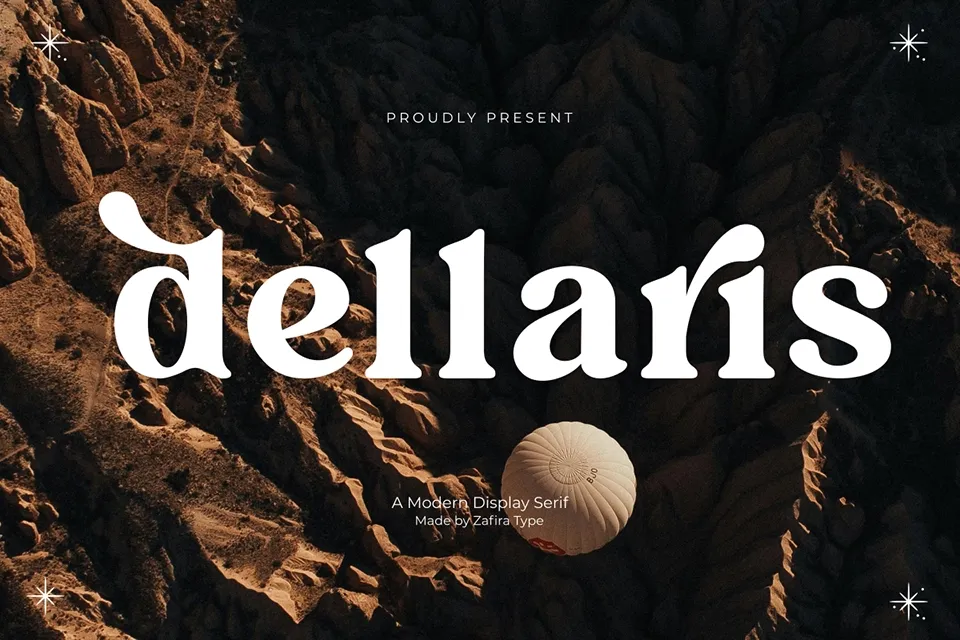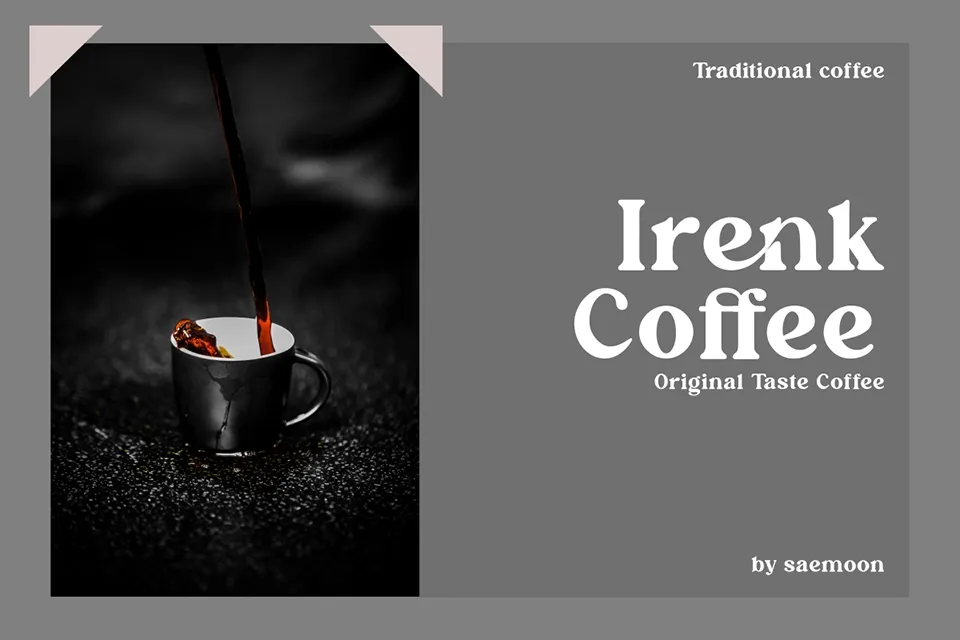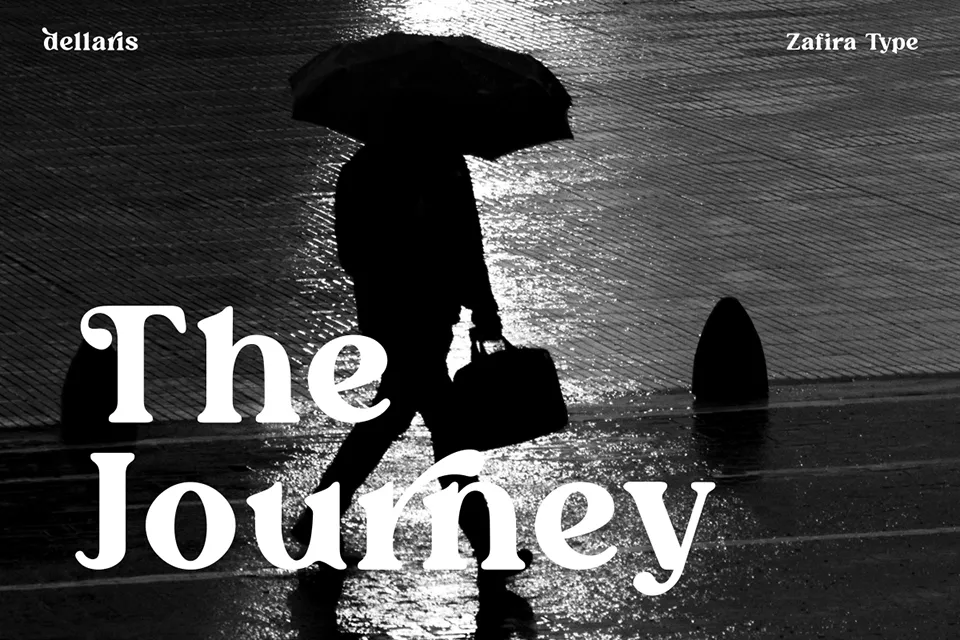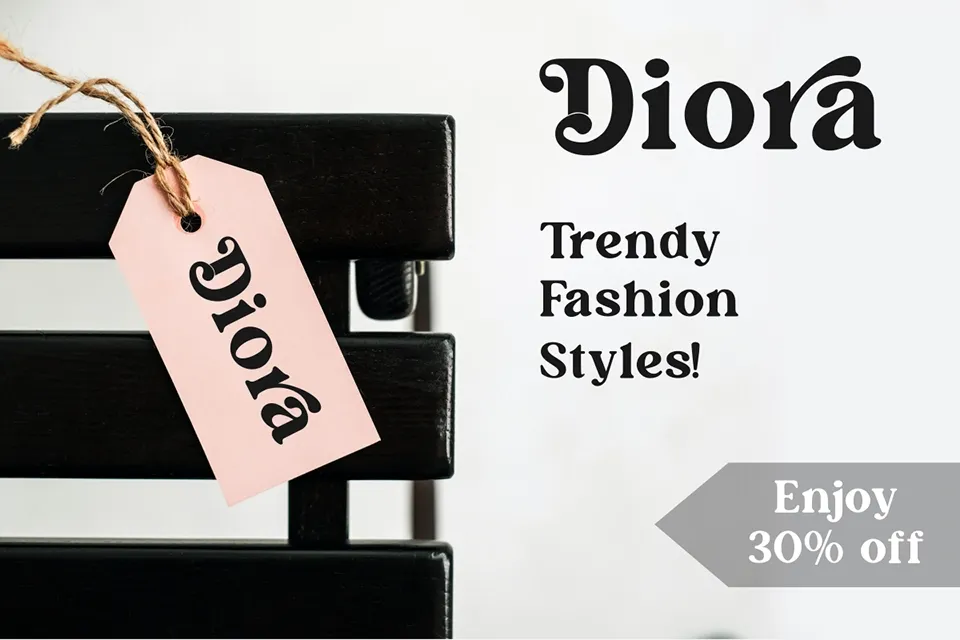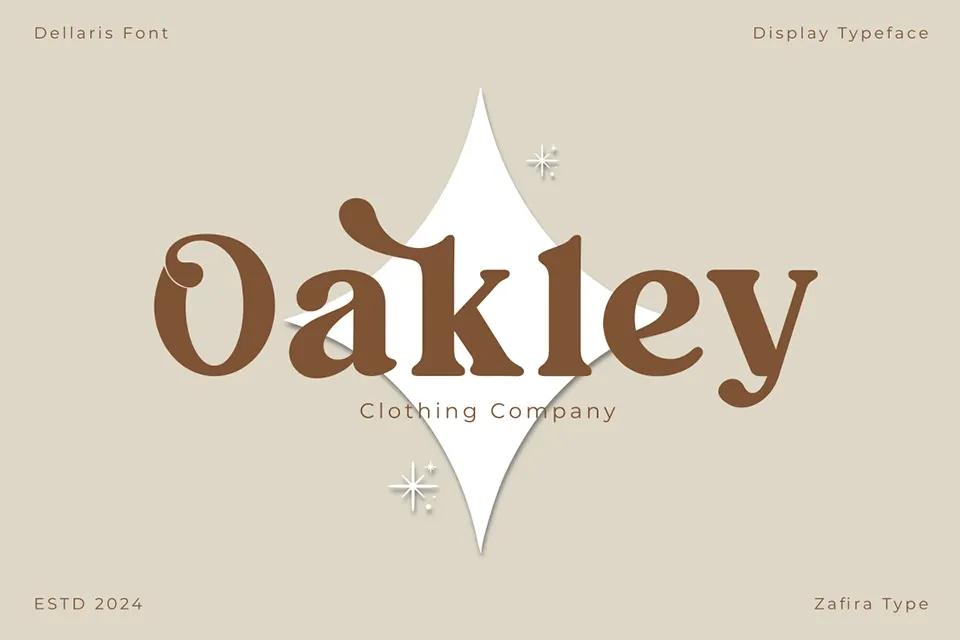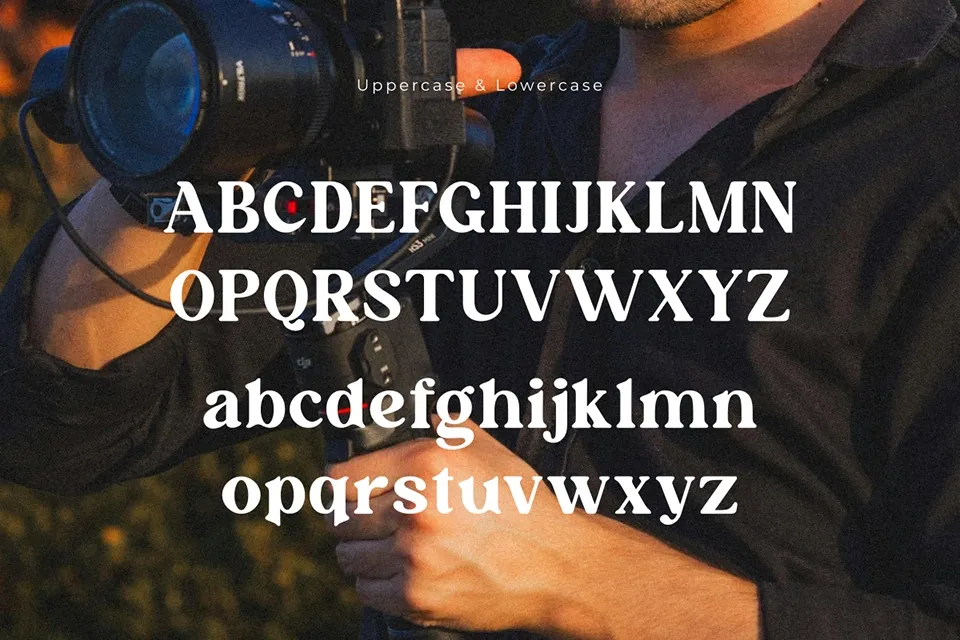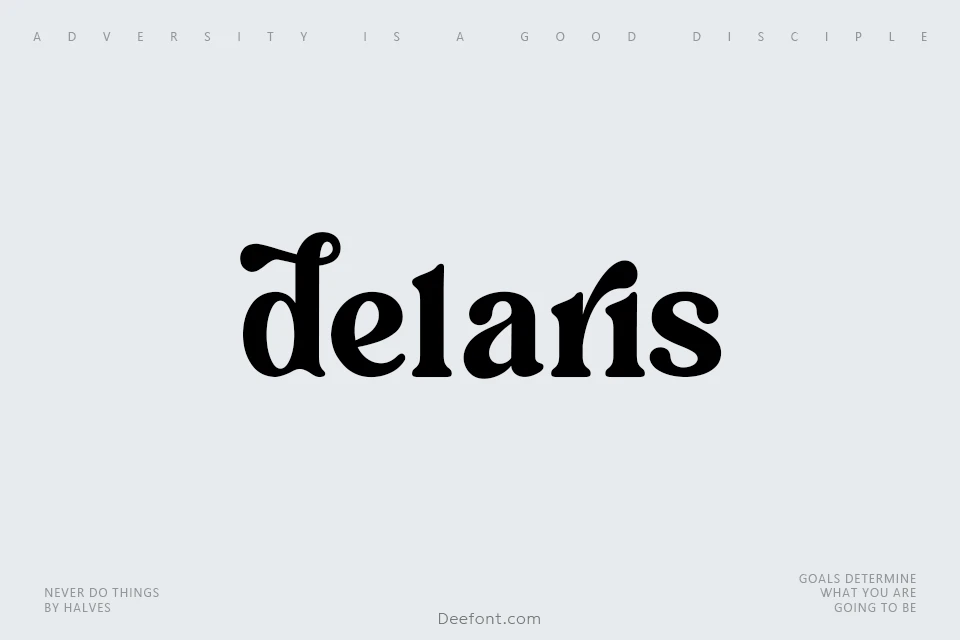
Delaris Font
Delaris Font is a striking modern display serif font crafted by Zafira Type. This typeface commands attention with its bold weight and unique character, blending contemporary design with classic serif elements. Delaris features distinctive letterforms with pronounced serifs and elegant, curved terminals, particularly noticeable in characters like the ‘d’ and ‘r’. It’s perfectly suited for impactful headlines, memorable logos, stylish branding, and eye-catching poster designs. Delaris brings a sophisticated yet bold presence, ensuring your message is delivered with modern flair and distinctive personality.